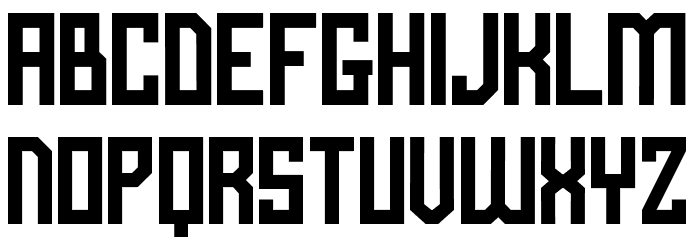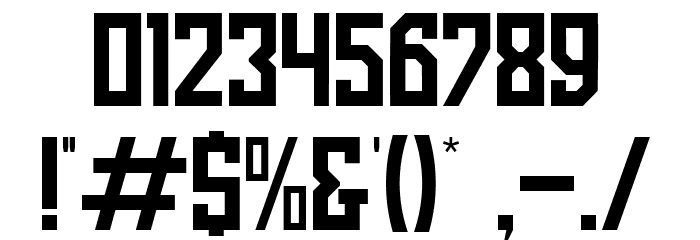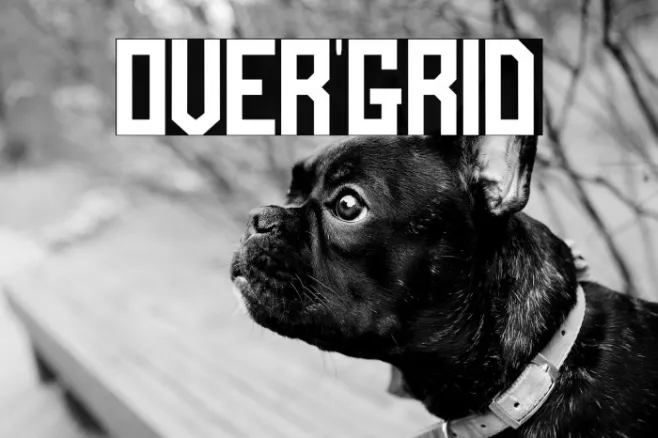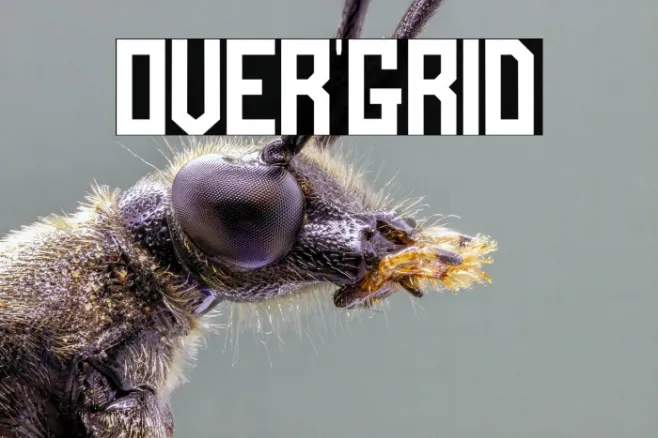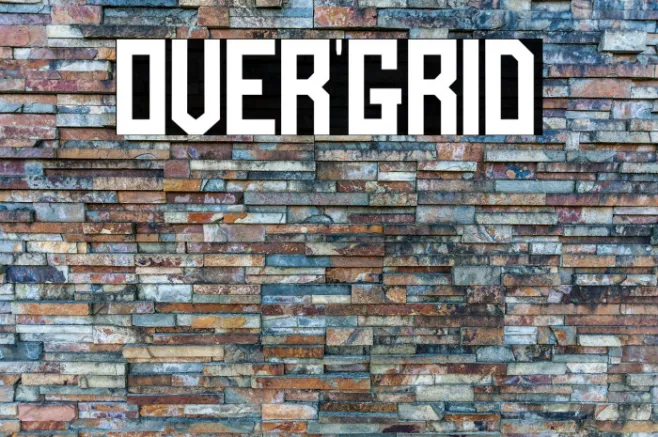
OVER'GRID Font
This font features a bold, geometric design with a strong, angular structure. The characters are uniformly thick, giving a robust and impactful appearance. The uppercase letters are particularly striking, with sharp edges and a modern aesthetic. The numerals and special characters maintain this bold style, ensuring consistency across all glyphs. The overall design is clean and uncluttered, making it suitable for attention-grabbing headlines and titles. Its distinct style is both contemporary and versatile, allowing it to stand out in various design contexts.
A bold, geometric font with a modern, angular design.
- Proposed Projects: Ideal for posters, logos, branding, and any project requiring a strong visual impact.